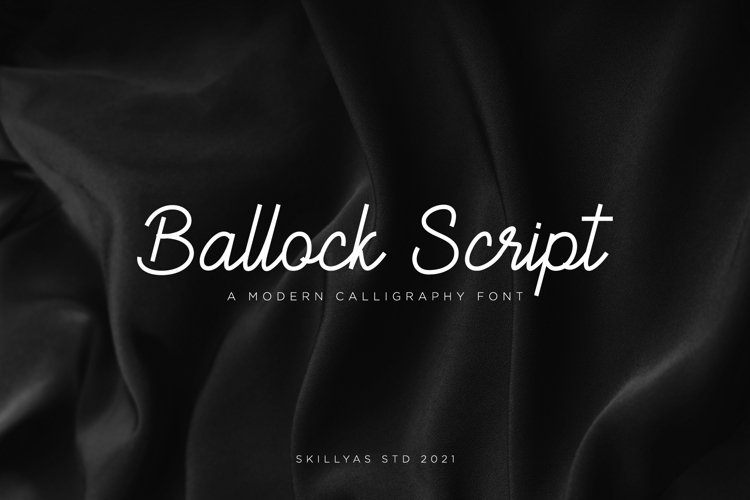
Ballock Script is semi bold calligraphy script font,
we made this font inspired by lego, so at the end of the line the font is a box shape.
this font is perfect for branding projects, wedding designs, social media posts, advertisements, product packaging, product designs, label, photography, watermark, invitation, stationery and any projects that need a unique handwriting taste.